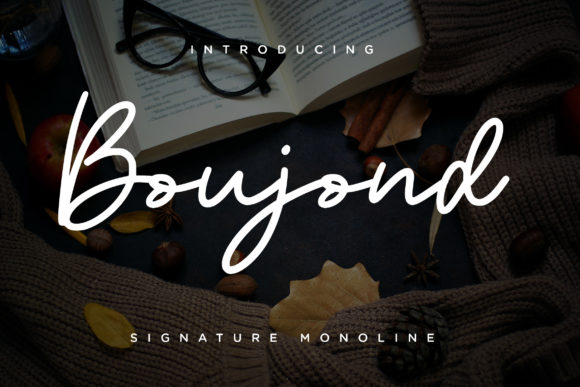
Unleash the captivating charm and timeless elegance of the Boujond script font, a masterpiece crafted to elevate your designs with a touch of authenticity. Immerse yourself in the world of Boujond, where creativity meets versatility, and where every letter dances with grace and poise.
With Boujond, you'll embark on a journey through the realms of artistic expression. Its meticulously crafted characters exude a captivating charm that breathes life into your words, making them resonate with a magnetic allure. Whether you're designing logos, branding materials, or inviting wedding invitations, Boujond's enchanting presence will leave an unforgettable mark.
Indulge in the harmonious flow of Boujond's curves, where each stroke intertwines like a symphony of elegance. Its delicate lines and playful flourishes evoke a sense of timeless sophistication, adding an irresistible allure to your creations. Let your designs radiate with the timeless beauty of Boujond, a font that transcends trends and captures the essence of enduring charm.
Embrace the versatility of Boujond, a font that effortlessly adapts to a myriad of design styles. Its inherent grace complements both classic and contemporary aesthetics, making it the perfect choice for a wide range of projects. From vintage-inspired designs that harken back to a bygone era to modern, minimalist creations that exude sleek simplicity, Boujond seamlessly blends with your unique vision.
Experience the magic of Boujond, a font that captivates and enchants with its enchanting beauty. Its intricate details and expressive strokes create a captivating narrative that draws the eye and leaves a lasting impression. Transform your designs into works of art, where every letter becomes a captivating element that tells a story. Boujond is more than just a font; it's an artistic journey that ignites your creativity and sets your designs apart.